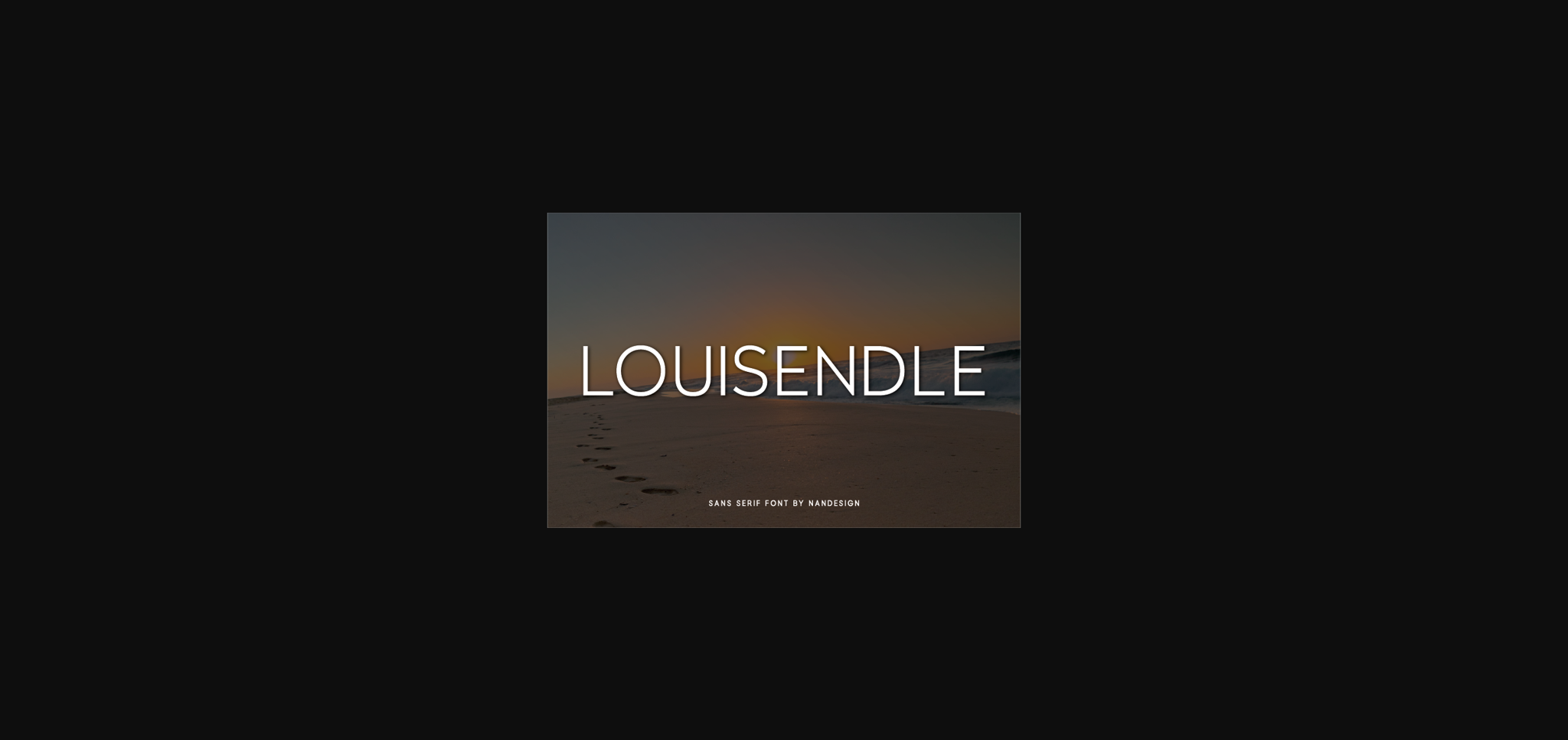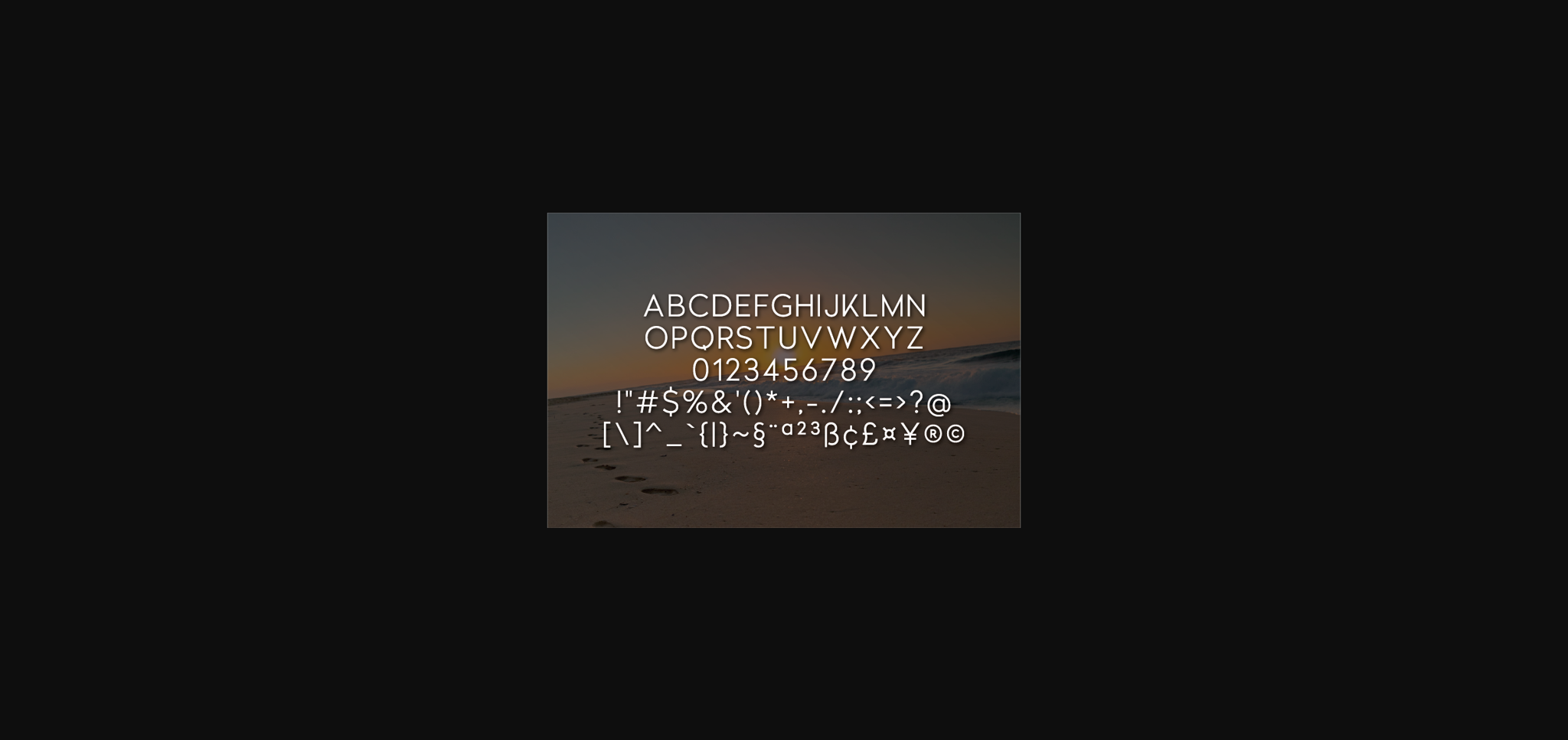
About Louisendle Font
Louisendle is a simple and neat lettered sans serif font. It can be matched to an incredibly wide range of projects, such as displays, headers, invitations, save the dates, weddings, and so much more!